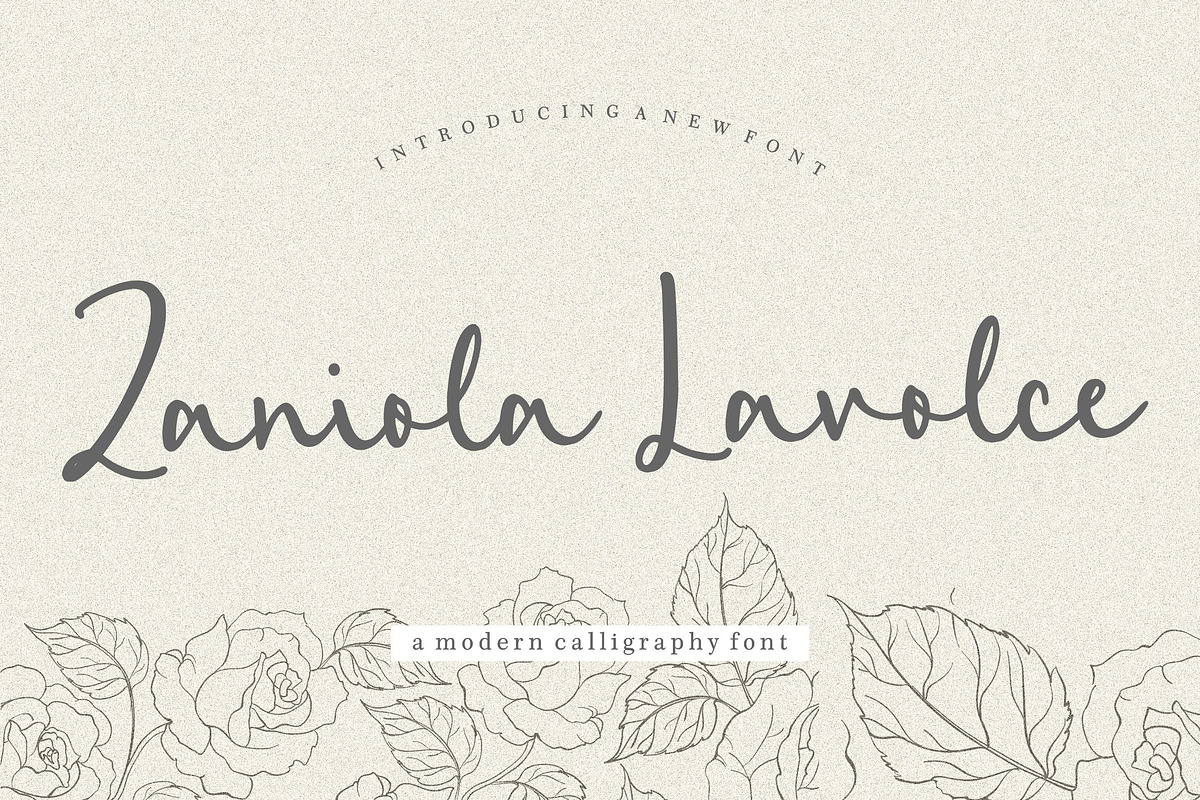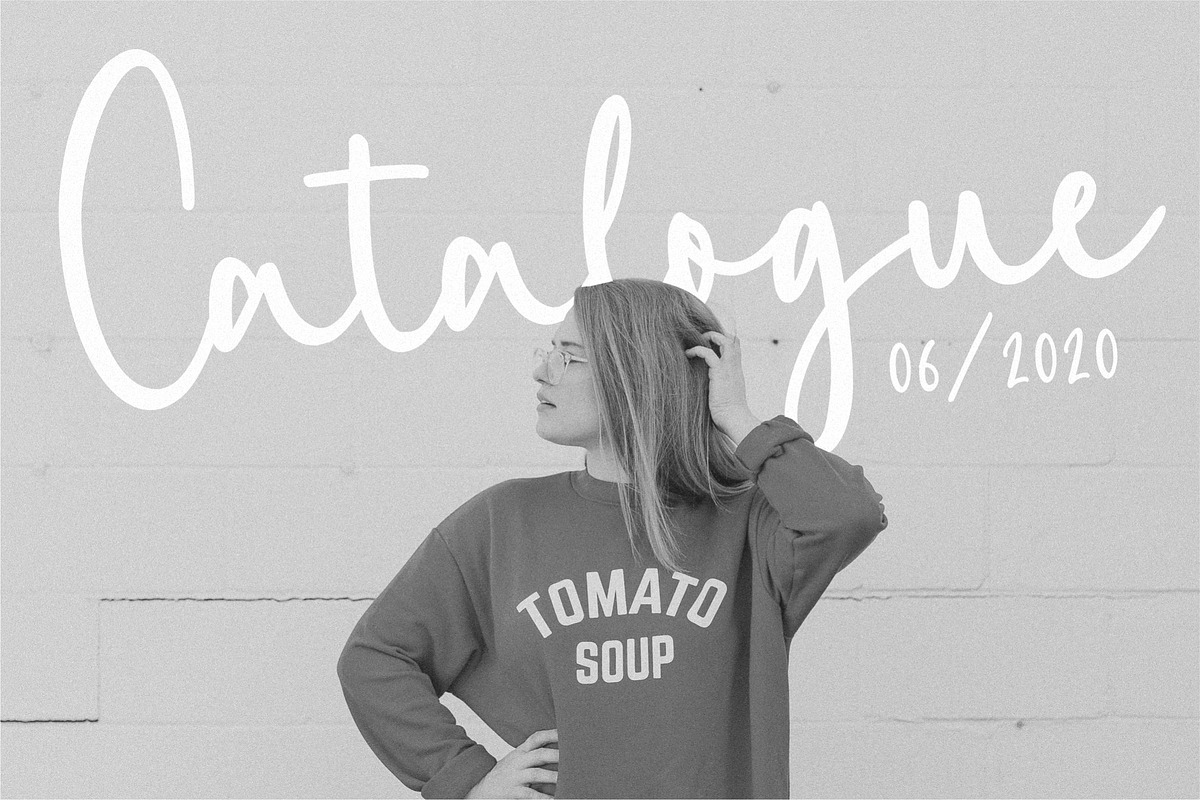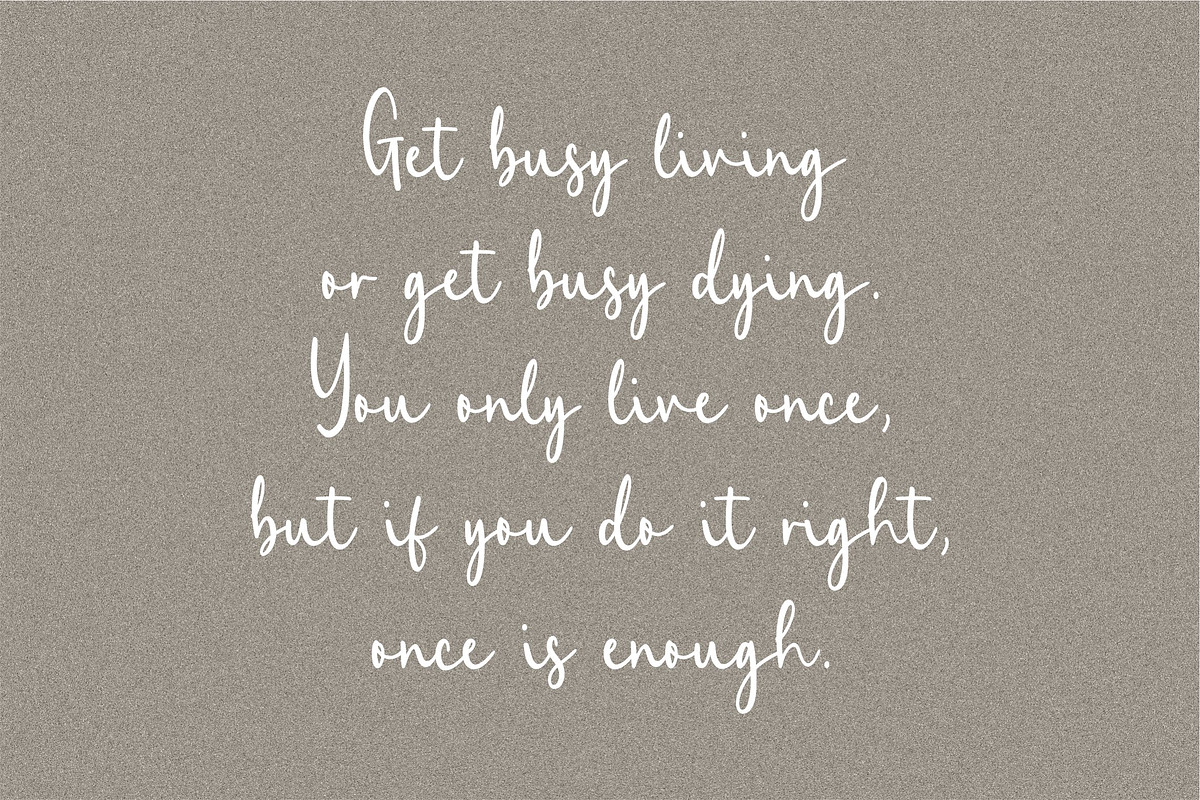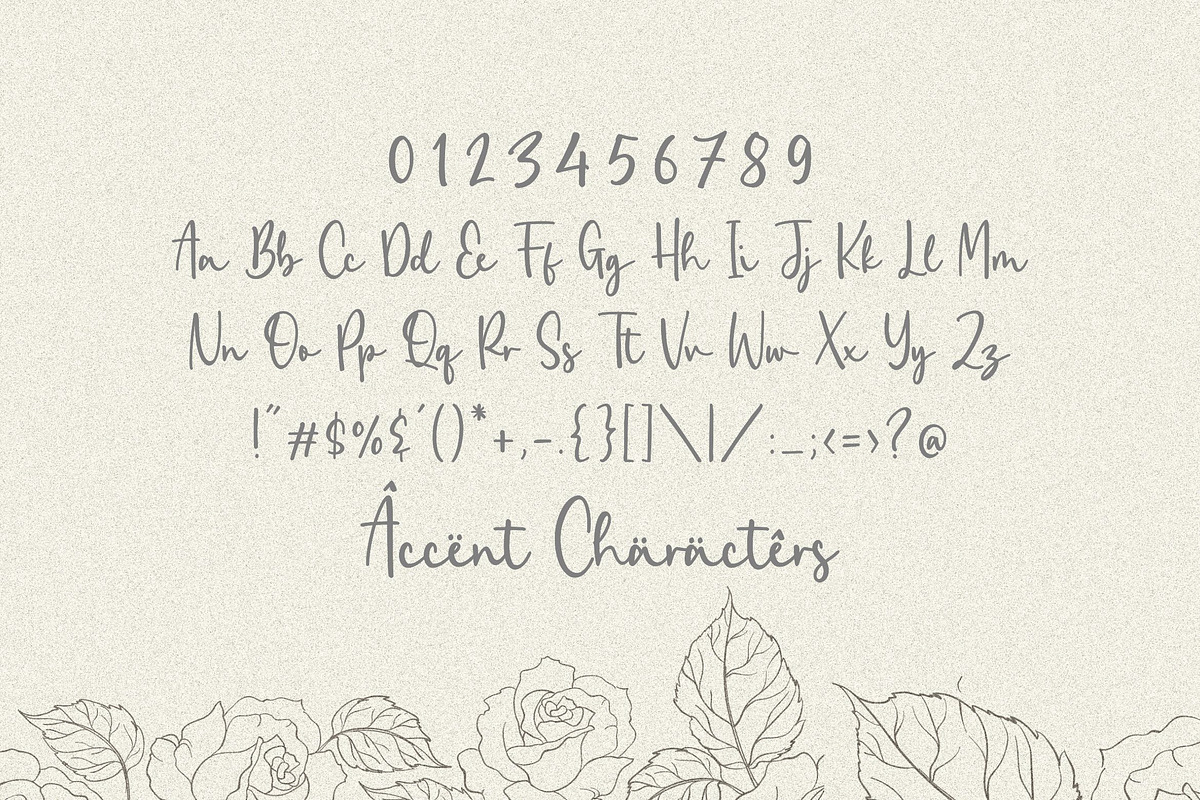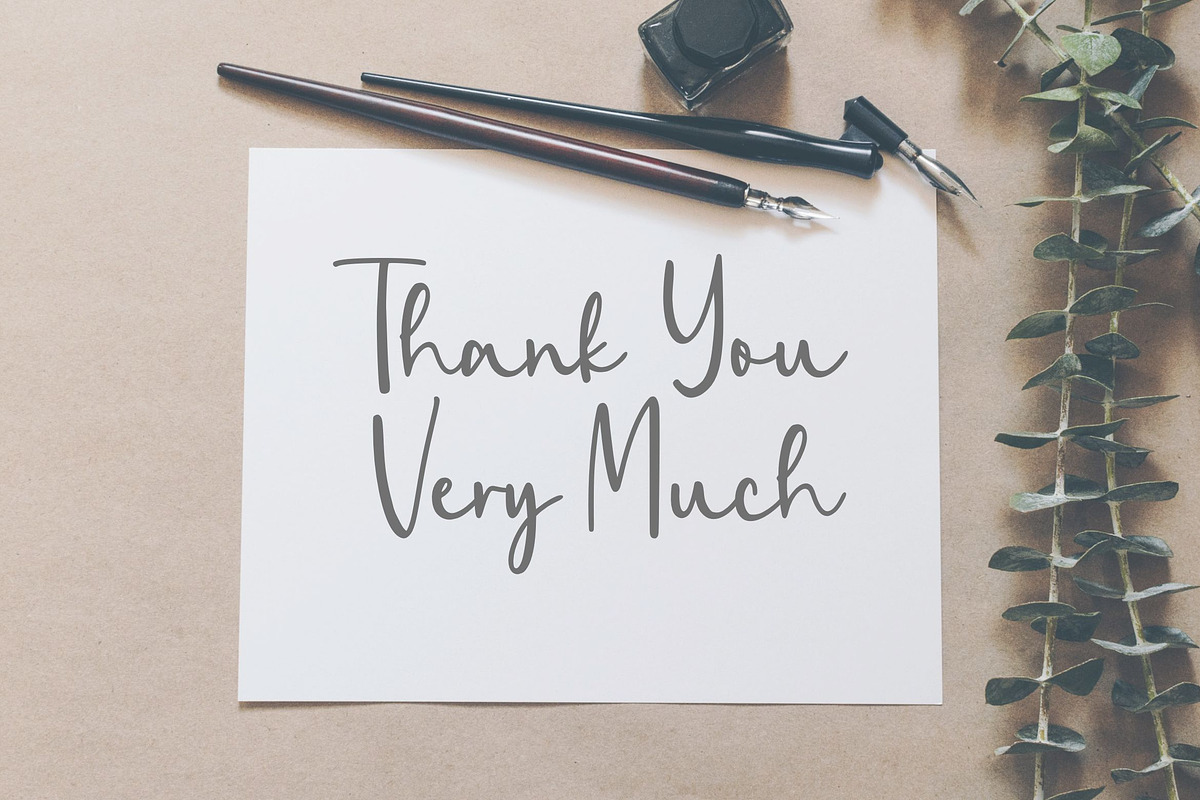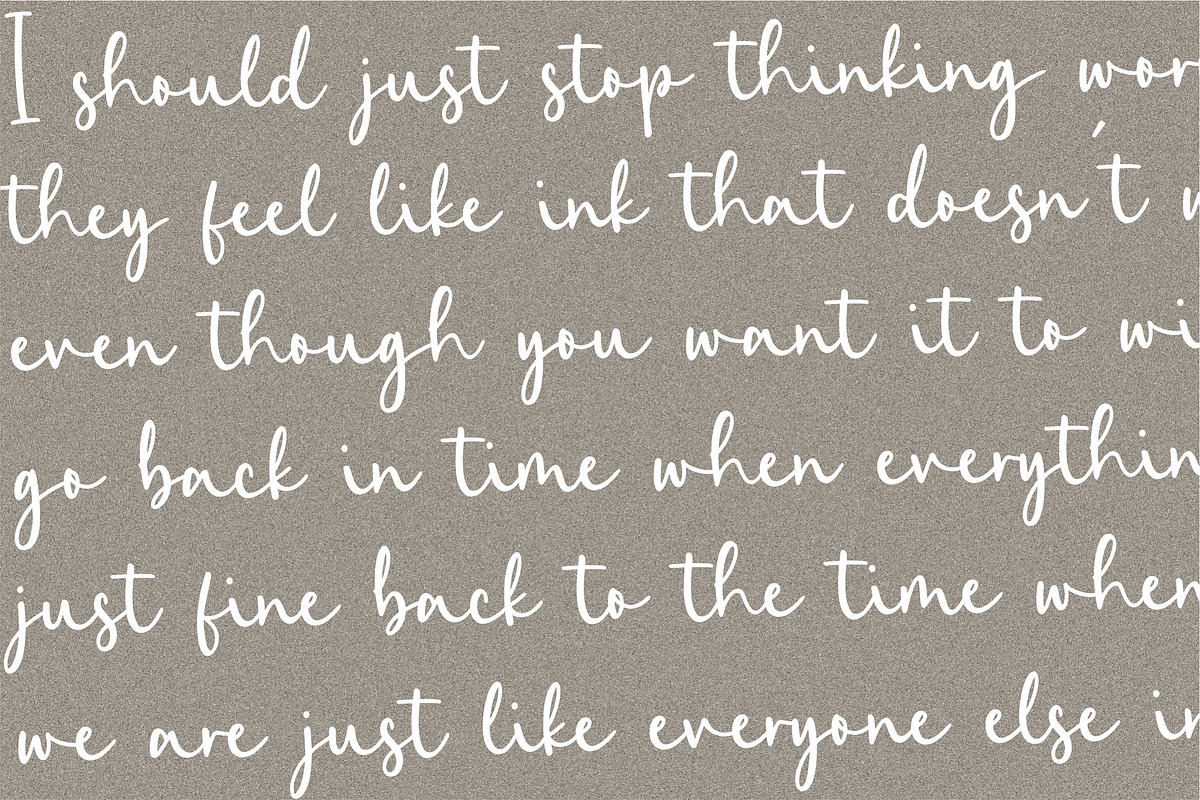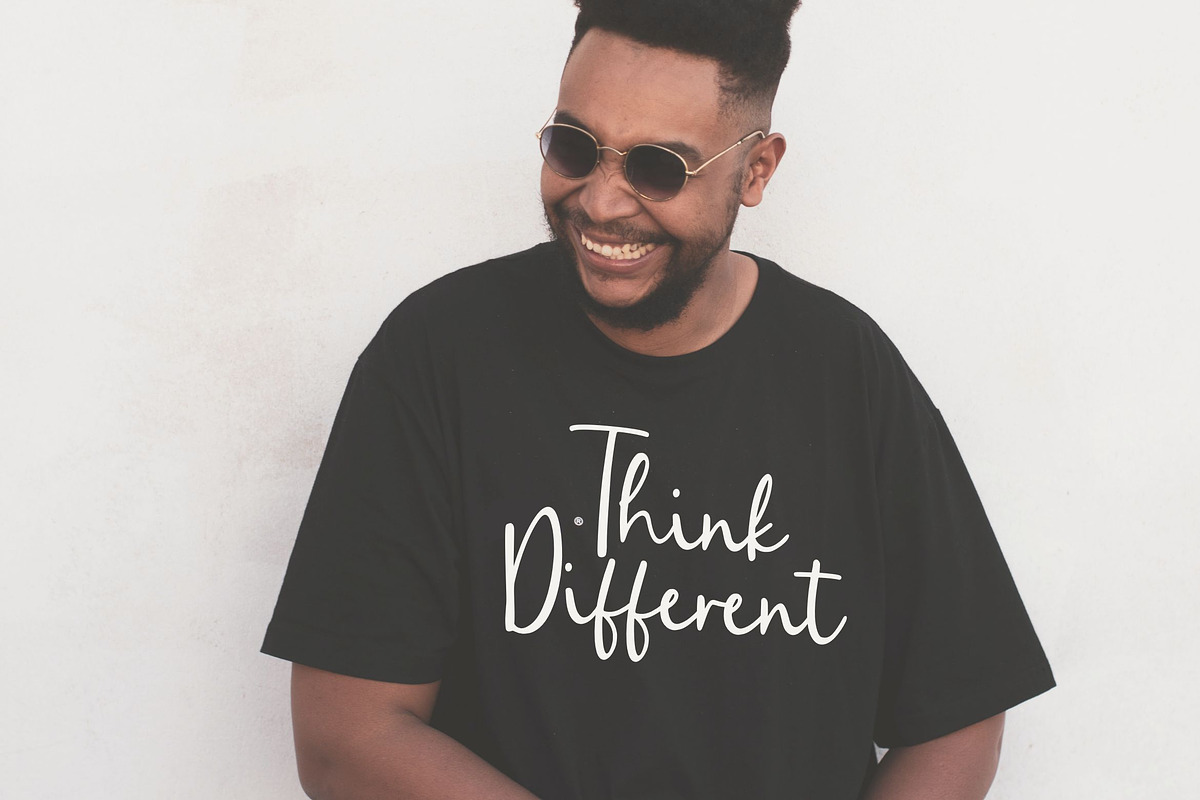
Zaniola Lavolce - Modern Calligraphy
Proudly Present, Zaniola Lavolce Font
Zaniola Lavolce is a modern handwritten font. Clean and a little bit quirky, this font is the perfect fit for all of your logos, branding, social media, and crafty DIY projects.